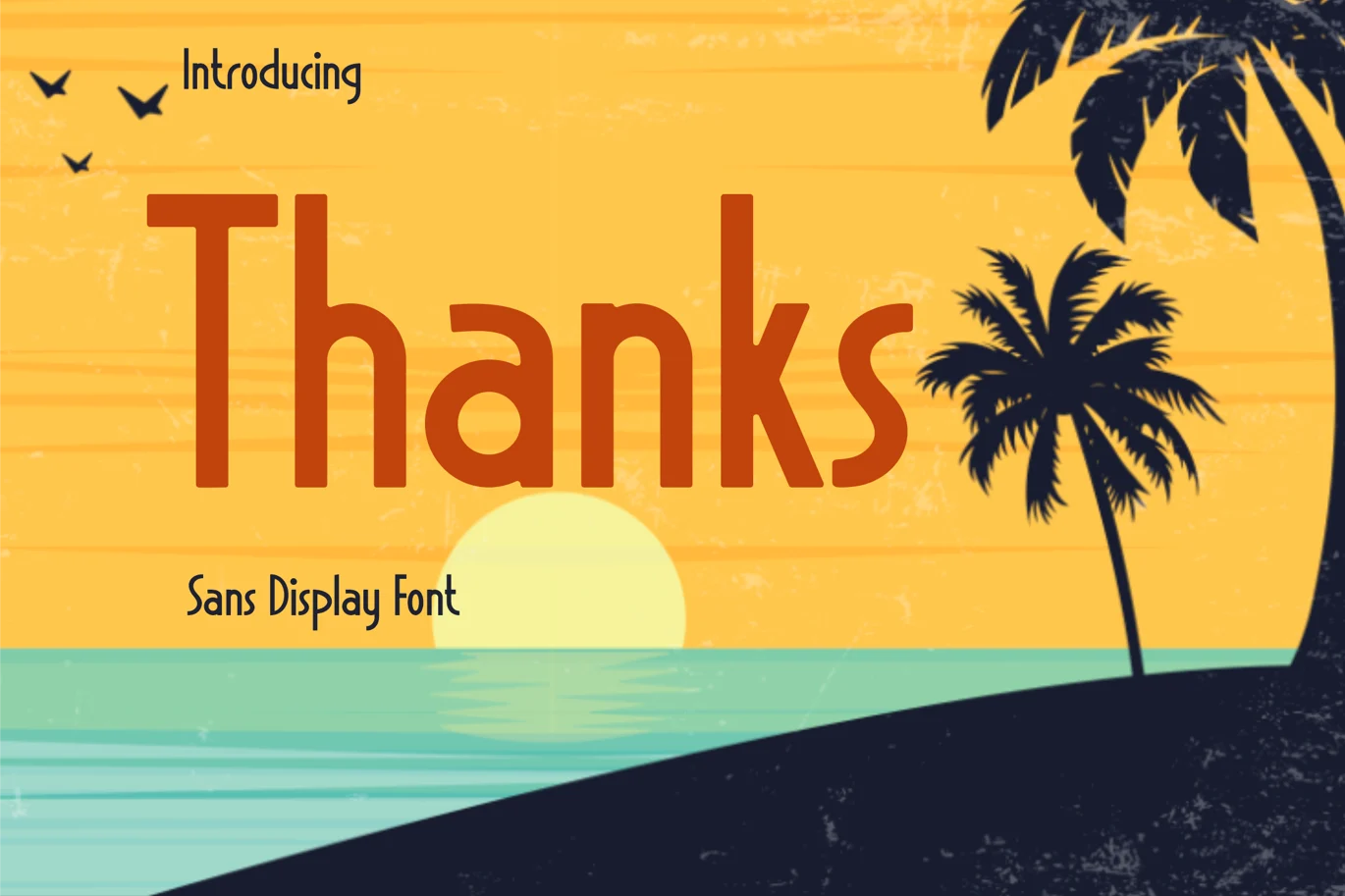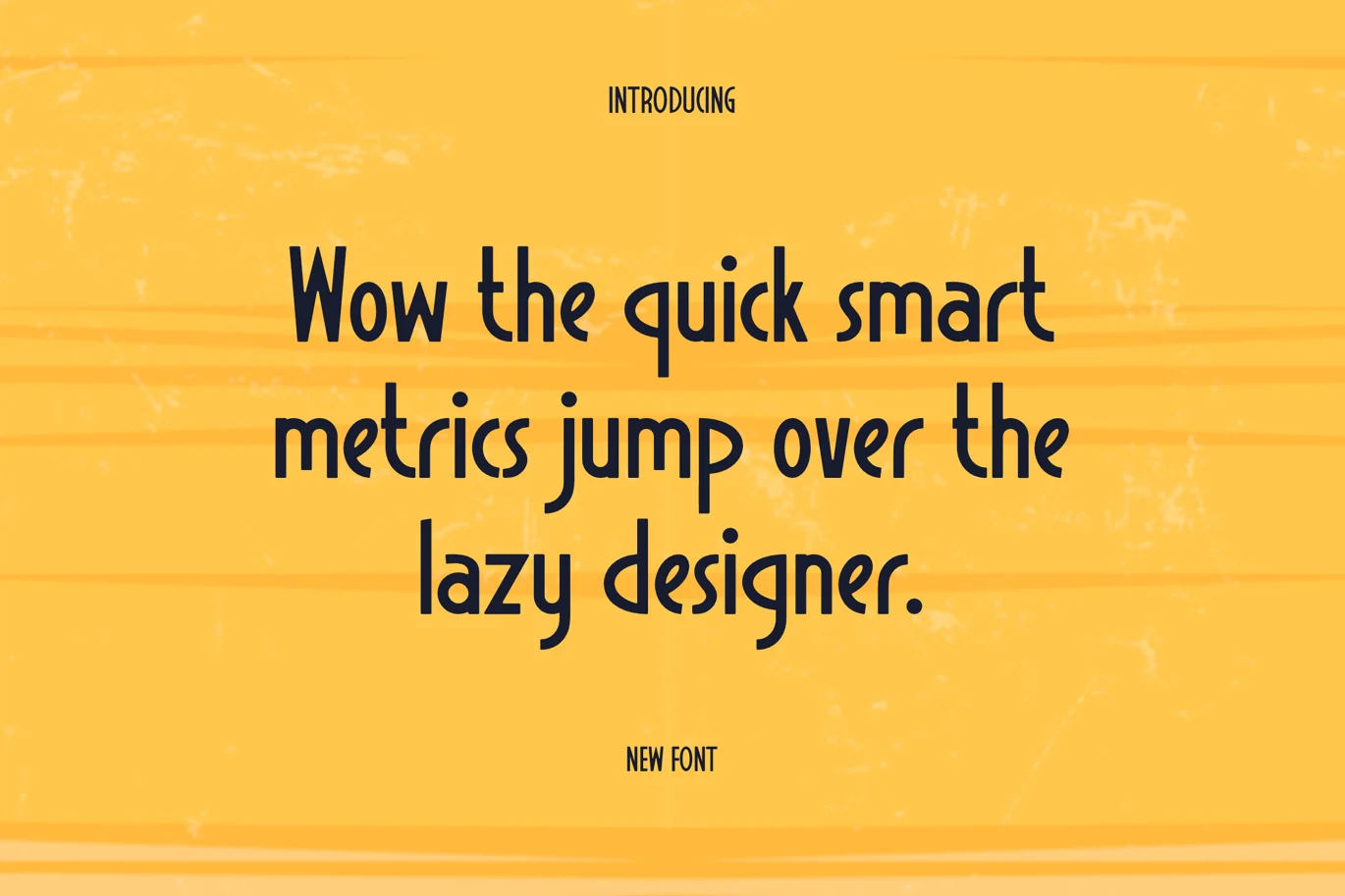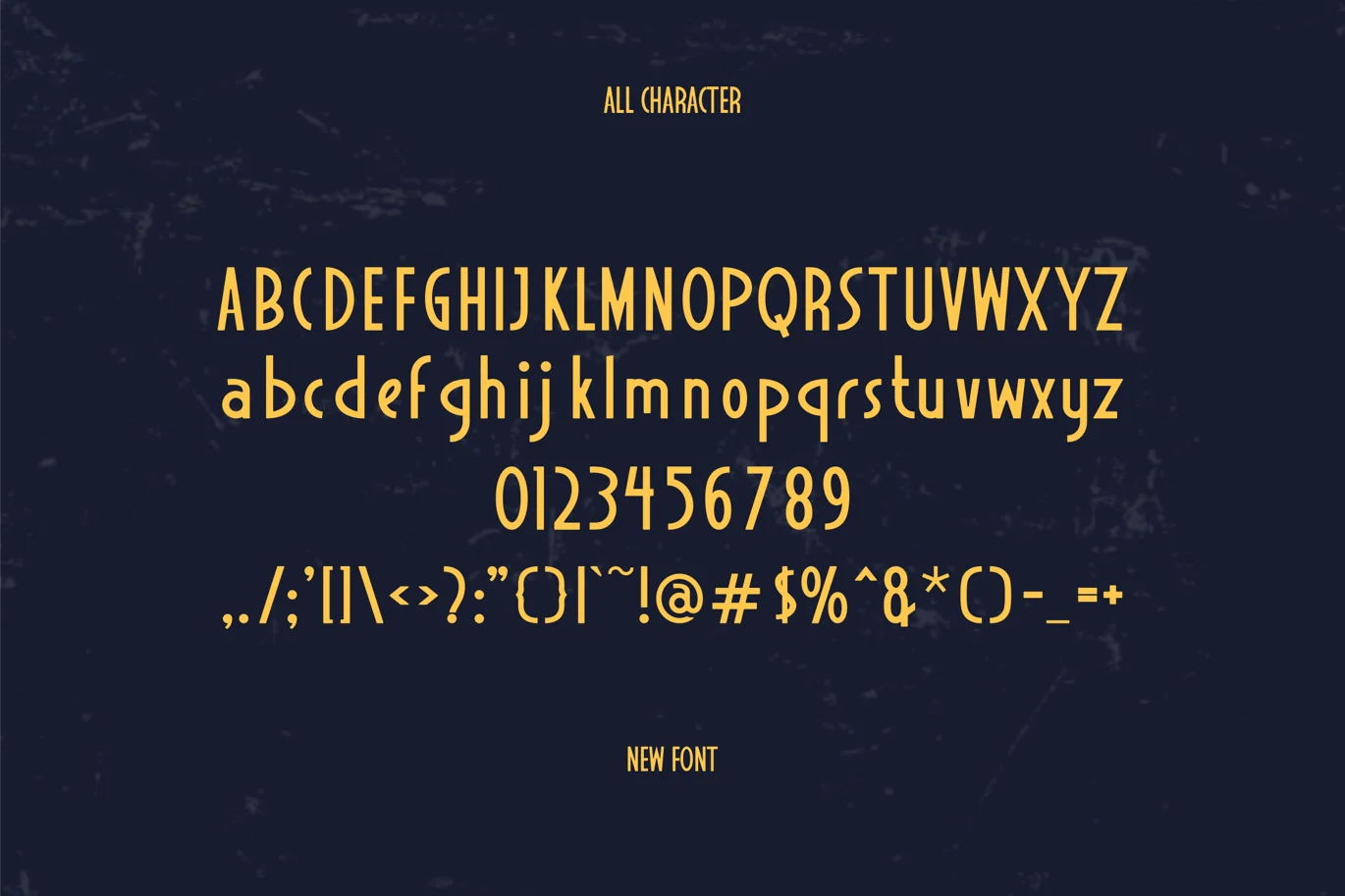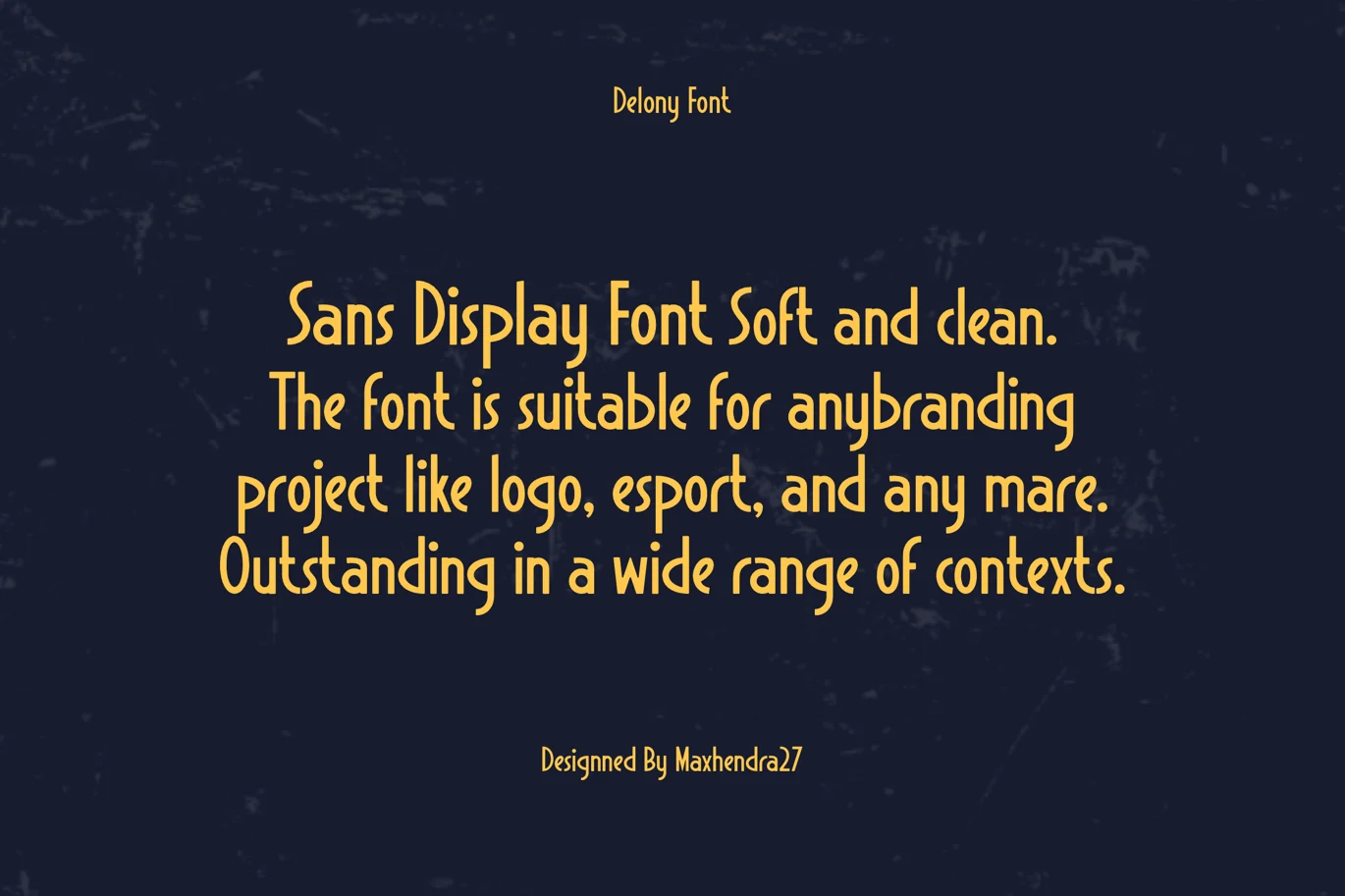
Delony – Sans Display Font
maxhendra27
Delony is a super thick typeface with more traditional letter shapes, making it perfect for creating (or recreating) the concise look of film poster production credits.
Feature :
- Uppercase Characters
- Lowercase Characters
- Punctuation & Numbers